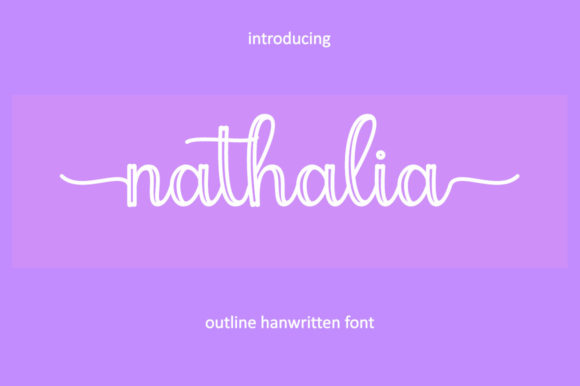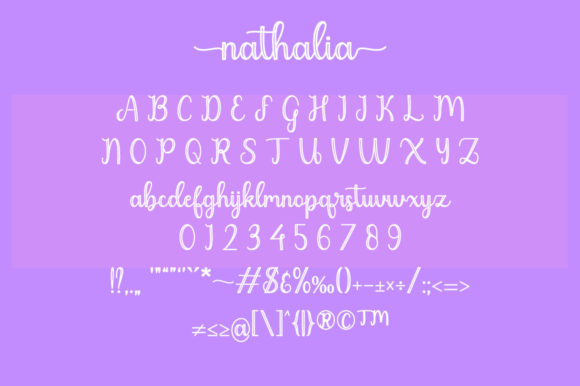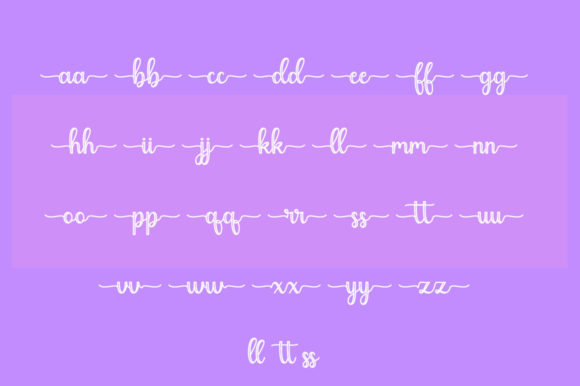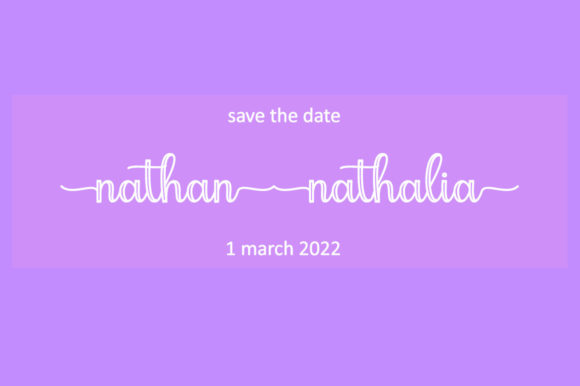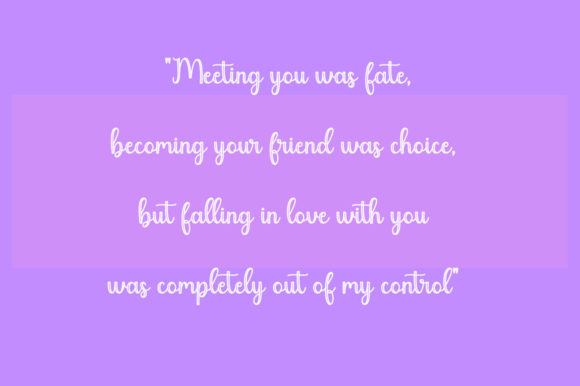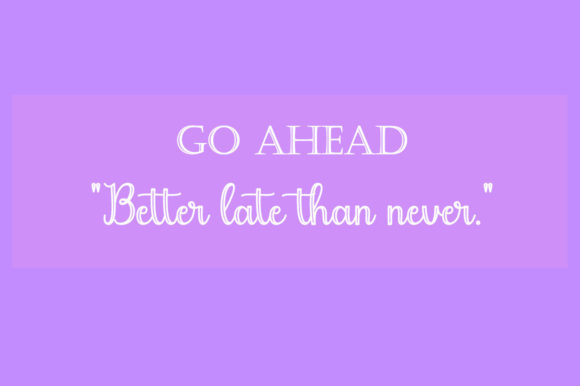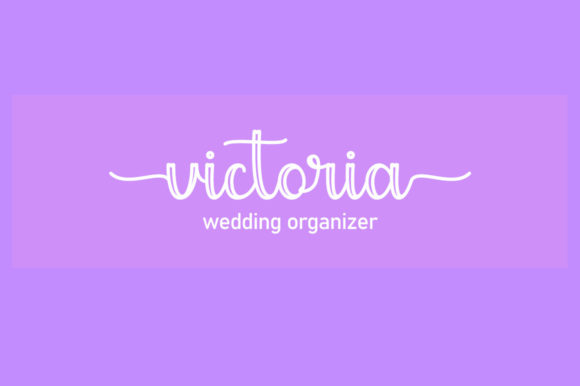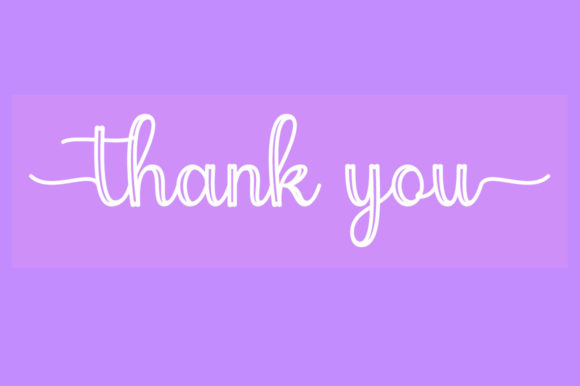
Nathalia Font
About Nathalia Font
Nathalia is a stylish and delicate script font. It has a classy, elegant and modern look that can be used for logos, branding, invitations, stationery, wedding designs, social media posts, and much more!